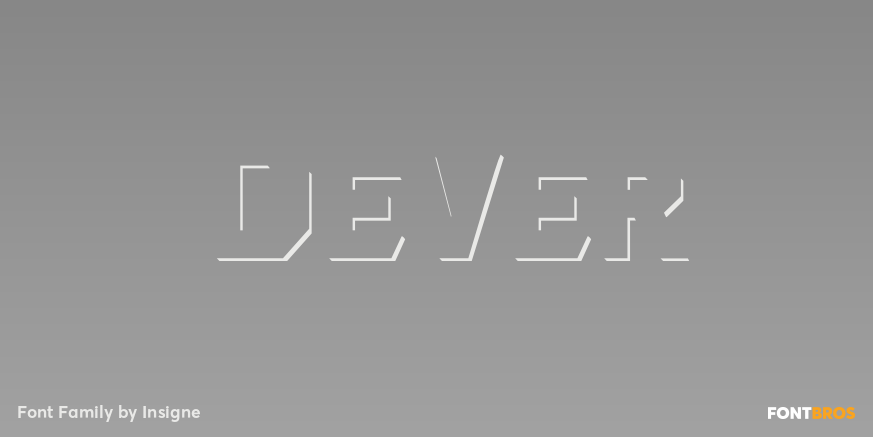
Dever
About Dever
Dever\’s brute, industrial lines are rounded up in this new typeface from Jeremy Dooley. Dever combines plenty of inspirations. It\’s the flair of the Wild West melded with a shout out to the sign painters and package lettering artists of the 1800s. Dever\’s…